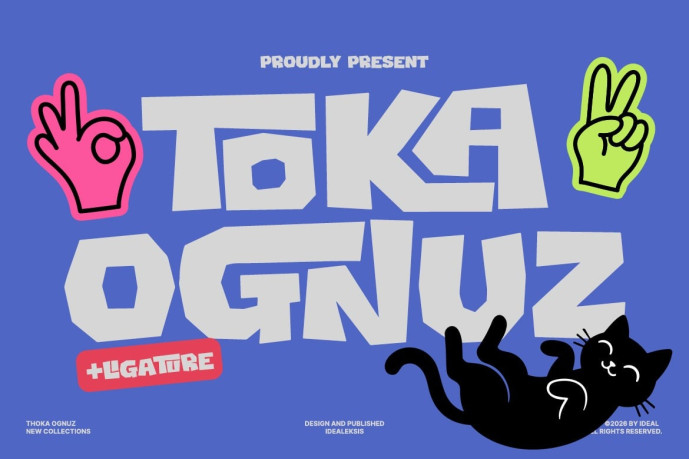
Toka Ognuz Font
Toka Ognuz Font is a bold, blocky display typeface with a playful and whimsical edge. Its chunky, geometric letterforms are balanced by quirky ligatures and vibrant visual elements, giving the font a lively personality. The design feels modern yet fun, making it perfect for creative collections, youthful branding, and projects that aim to combine bold impact with a touch of humor and charm